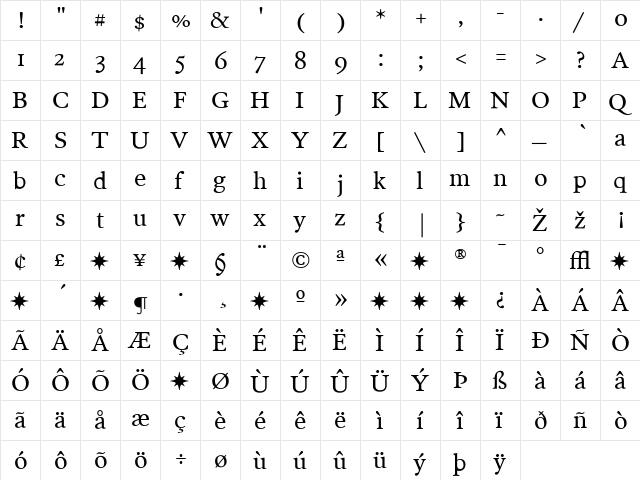
PoynterText-RomanTwo Regular
Design Context for PoynterText-RomanTwo Typeface
PoynterText-RomanTwo is a composed and adaptable typeface that performs quietly and consistently across a wide range of design contexts.